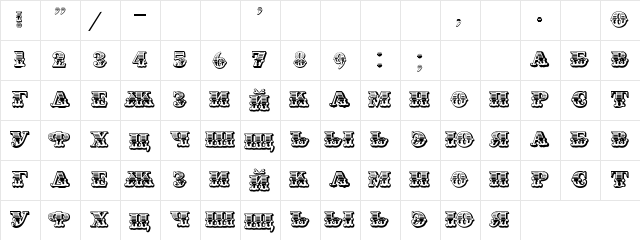
Invest Normal
Design Context for Invest Typeface
Invest is a composed and adaptable typeface that performs quietly and consistently across a wide range of design contexts.